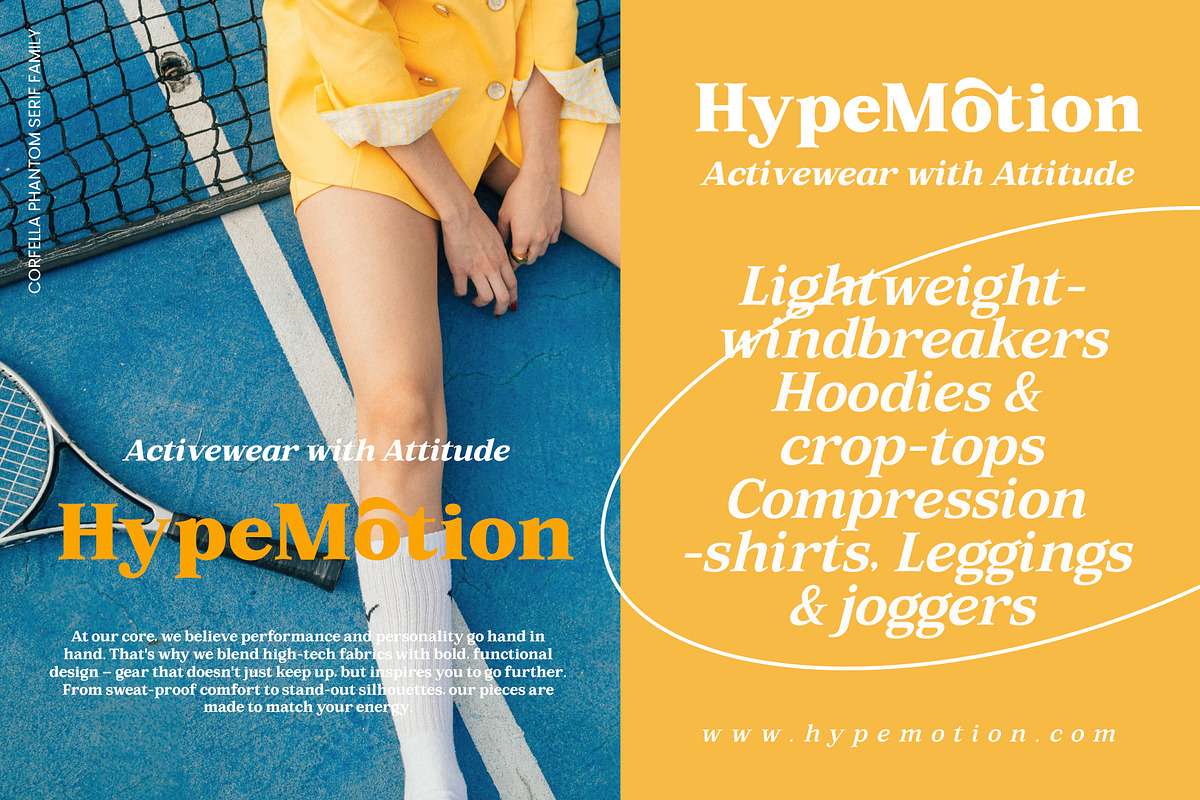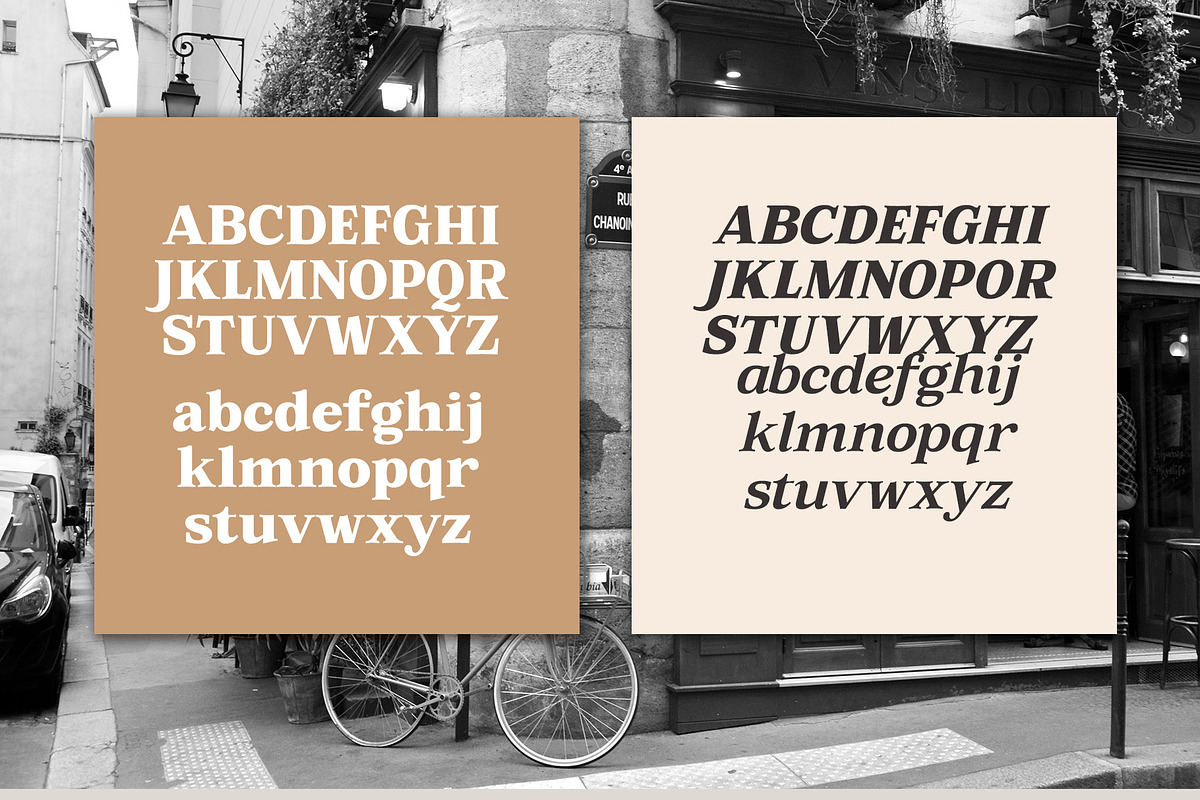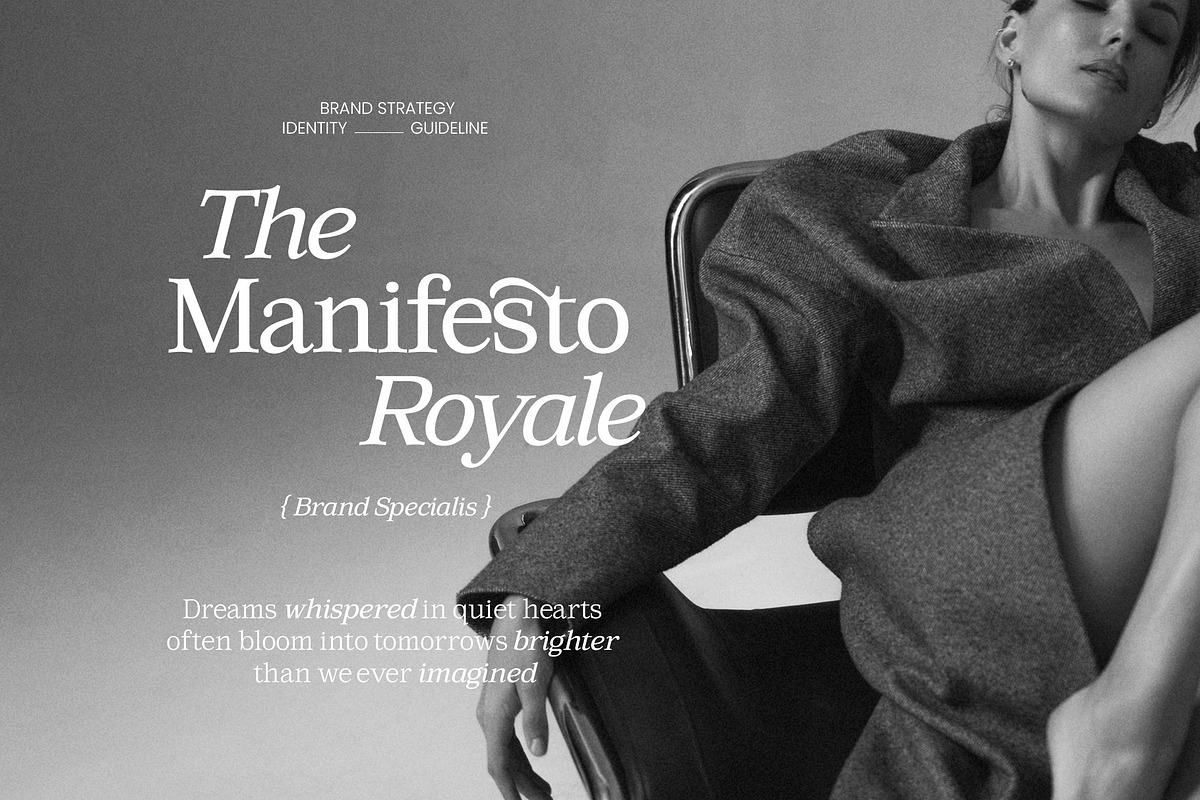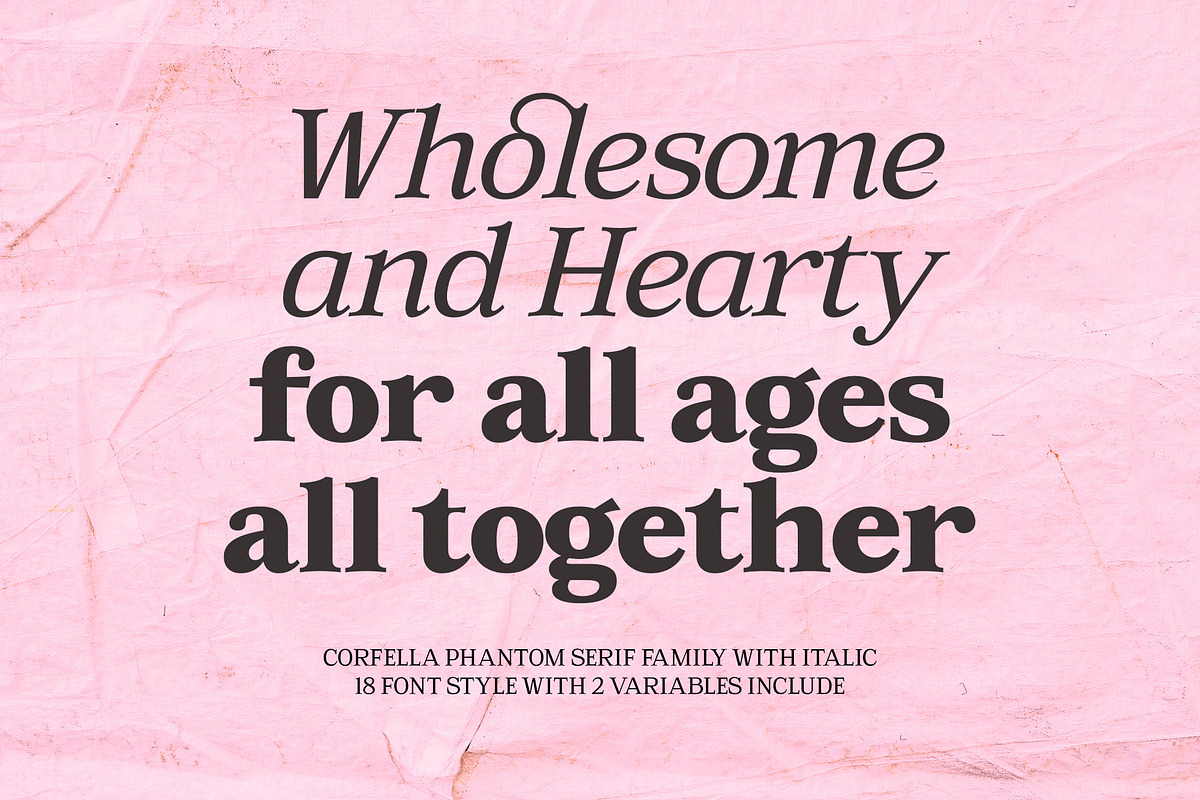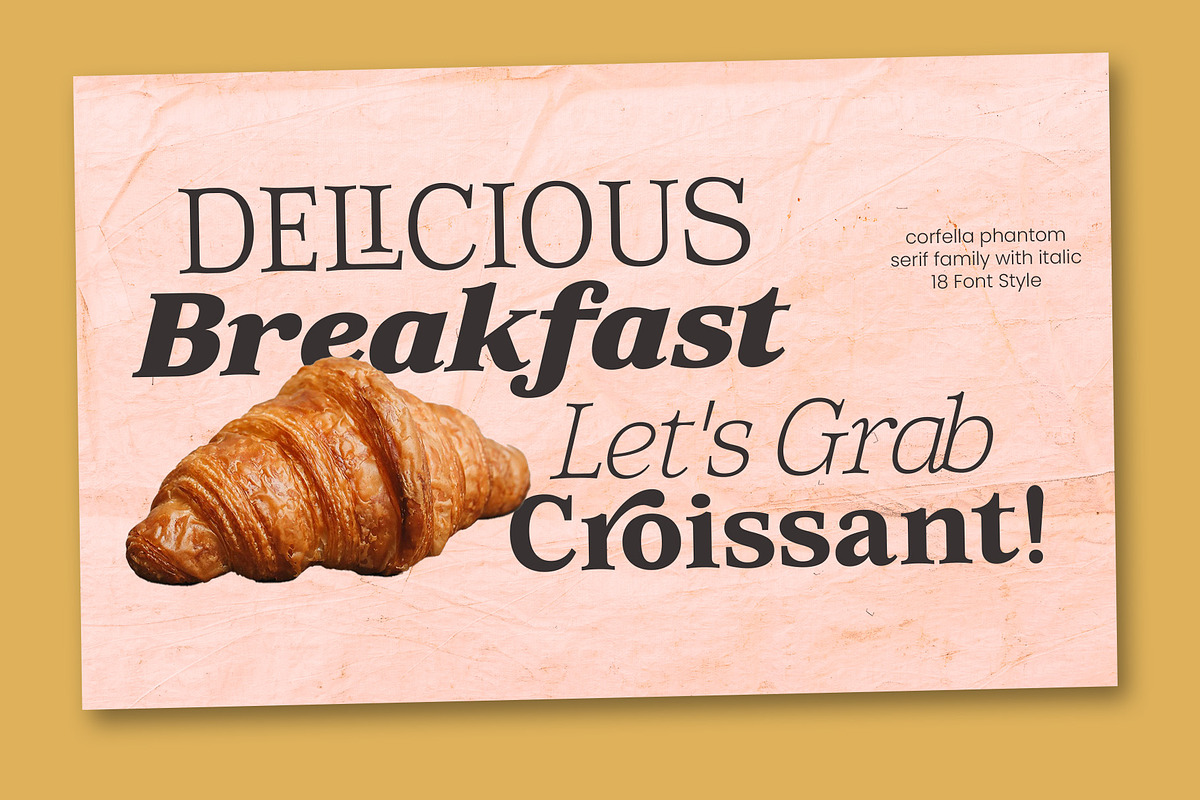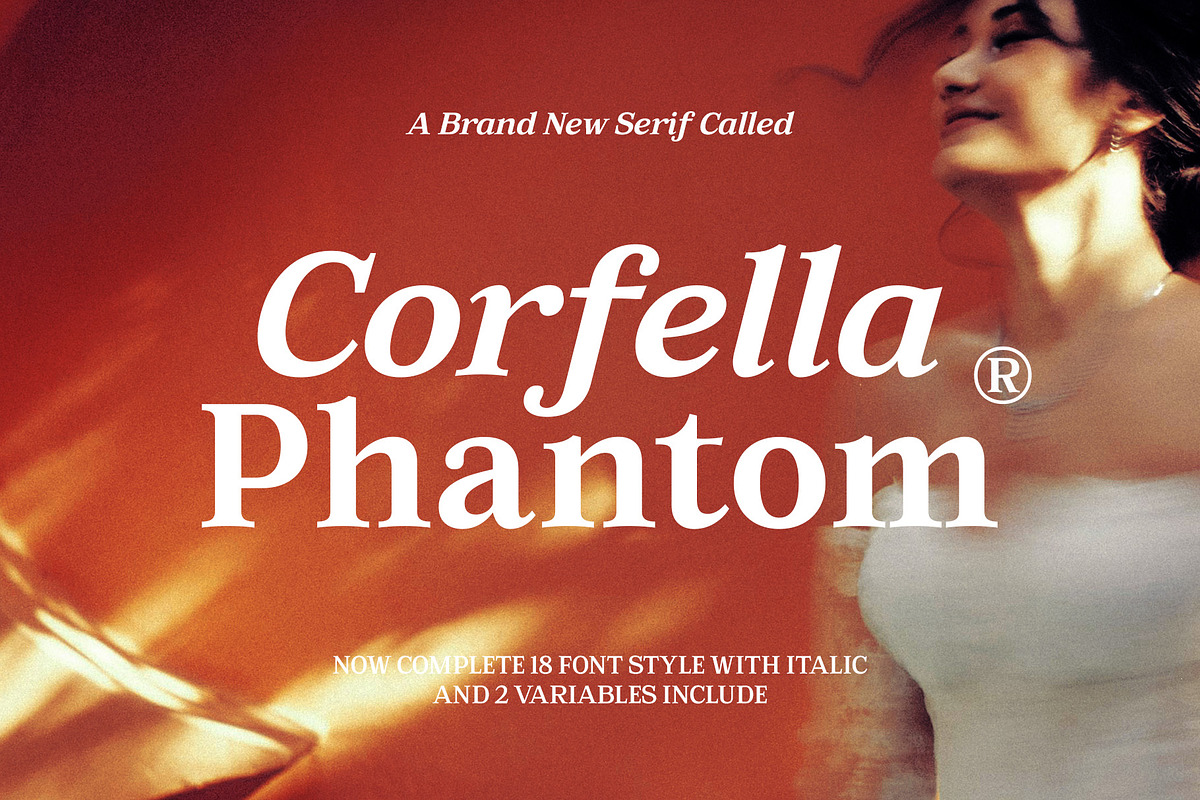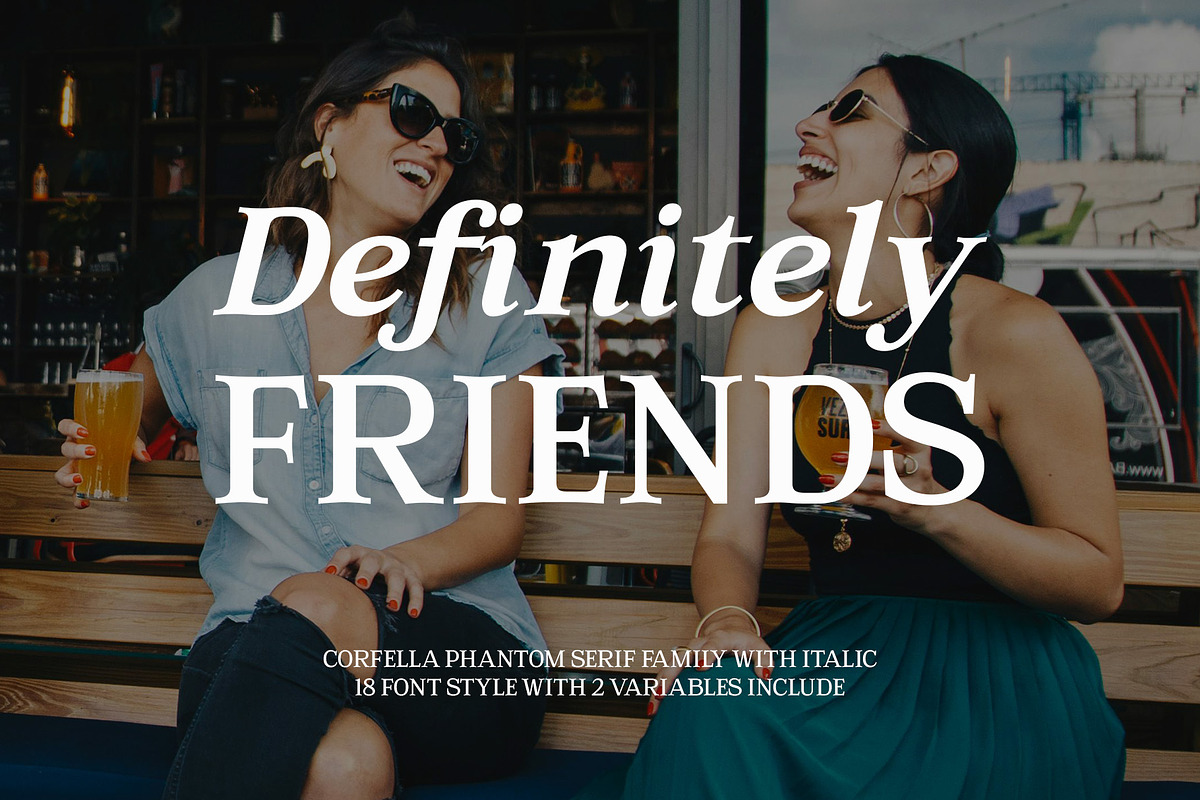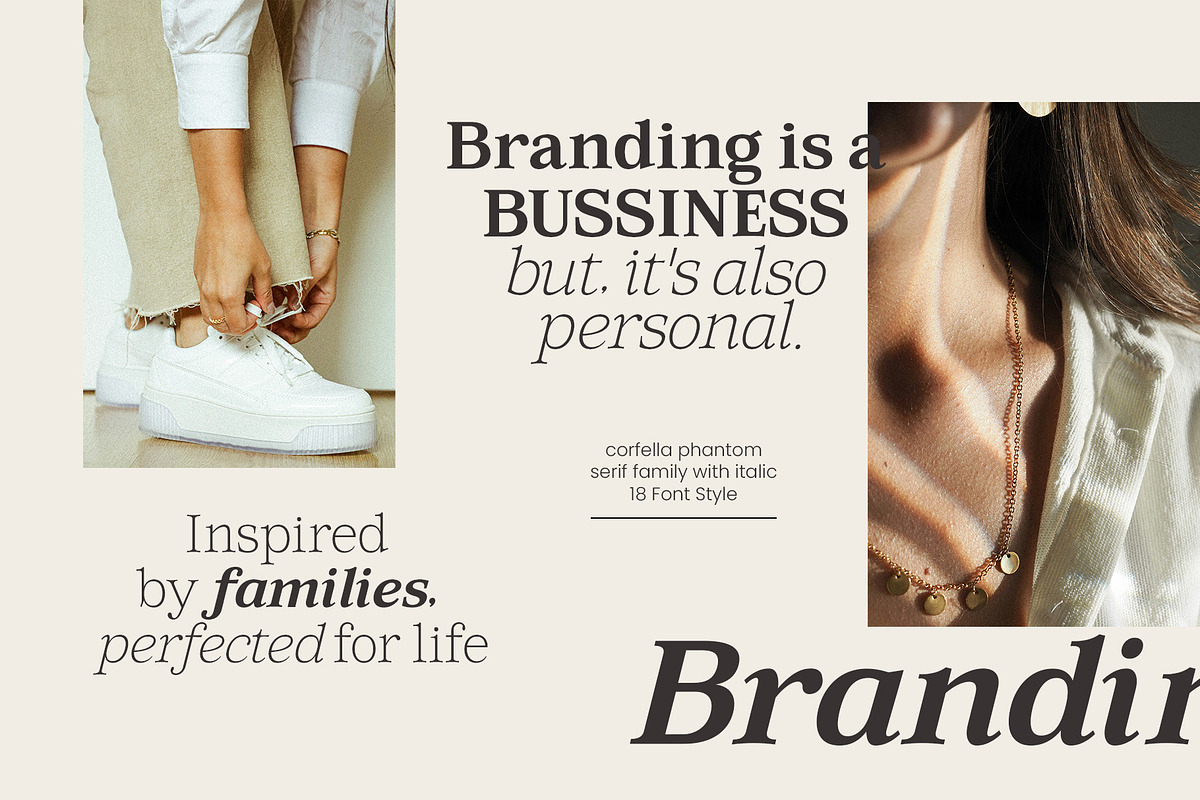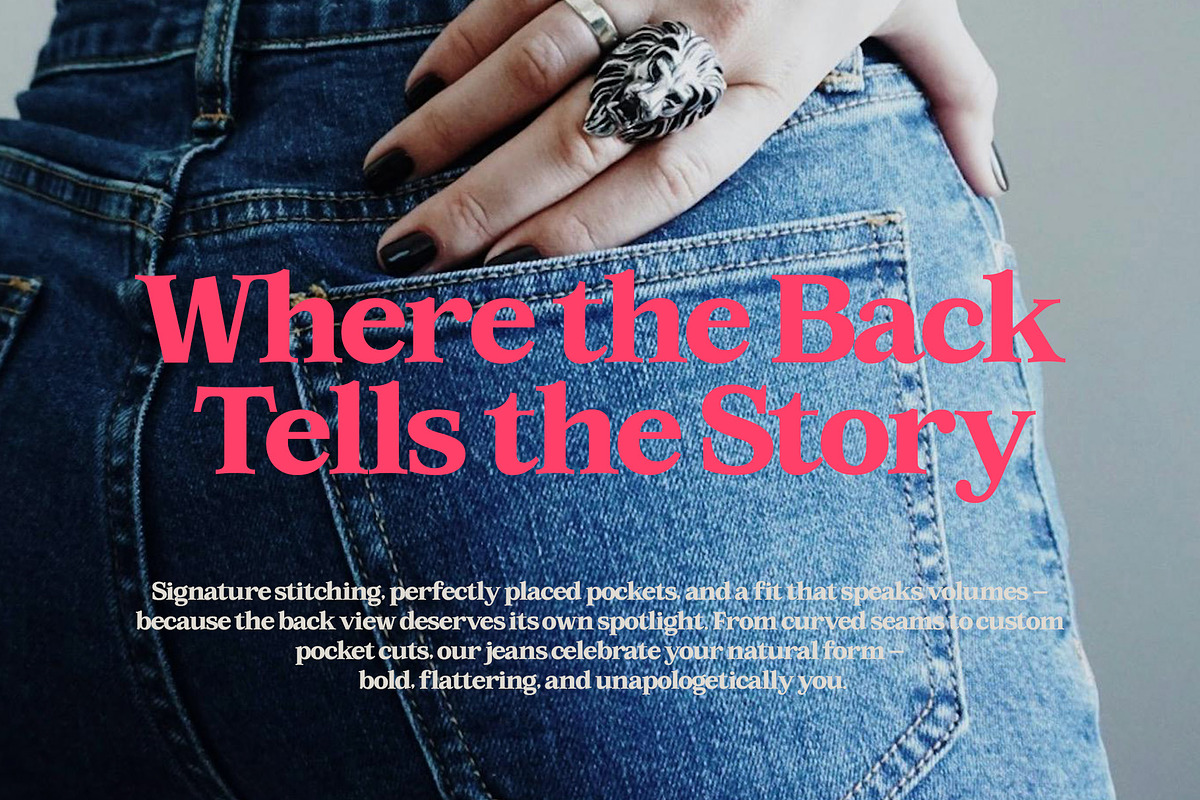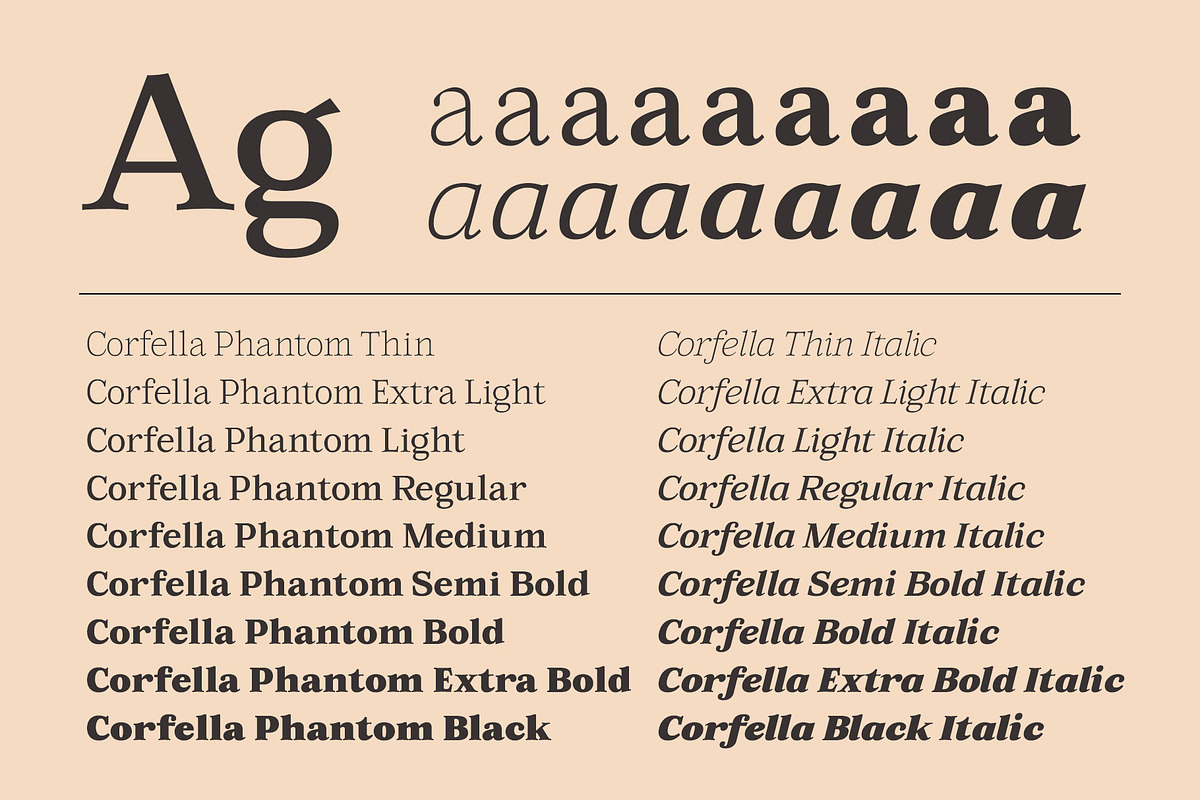
Corfella Phantom
The Corfella Phantom Font Family Pack is an Elegant serif font that comes in 20 different weights. Designed to reflect nature, creating a sense of softness and natural expression. The concept is pushed in a usability-focused direction, to serve as both a bold tool and a classy communicator.
The Corfella Phantom character set combines many of the features of open type - additional symbols, both standard and optional, as well as punctuation in case and lower case - resulting in a stable workhorse set ready to handle projects of any size.